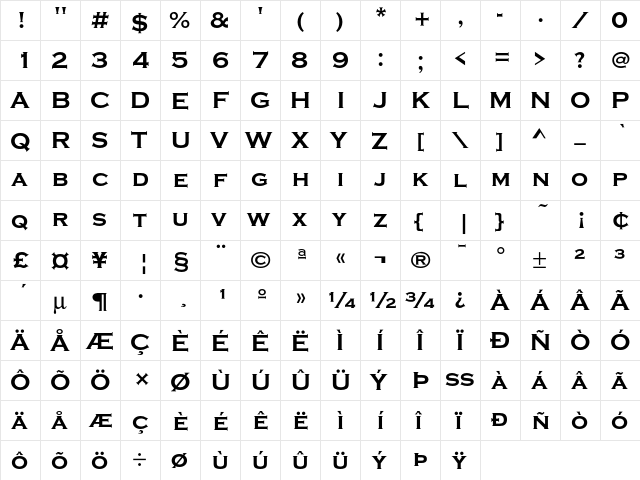
CoppeTBol Regular
Design Context for CoppeTBol Typeface
CoppeTBol offers clean, dependable letterforms without strong stylistic allegiance, making it a practical choice for designers who need flexibility.